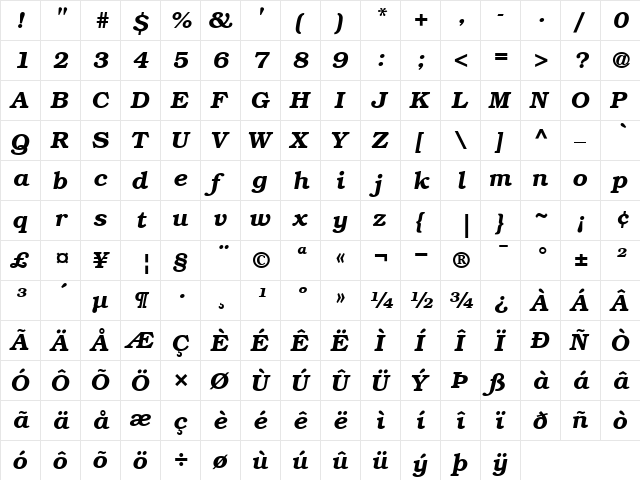
ITCmanDemi-Book BookItalic
Design Context for ITCmanDemi-Book Typeface
ITCmanDemi-Book is a composed and adaptable typeface that performs quietly and consistently across a wide range of design contexts. Its italic angle brings a sense of urgency and motion to the letterforms.
Pro Tip: Use ITCmanDemi-Book for emphasis, pull quotes, and subheadings where its slanted energy can add rhythm to the layout.